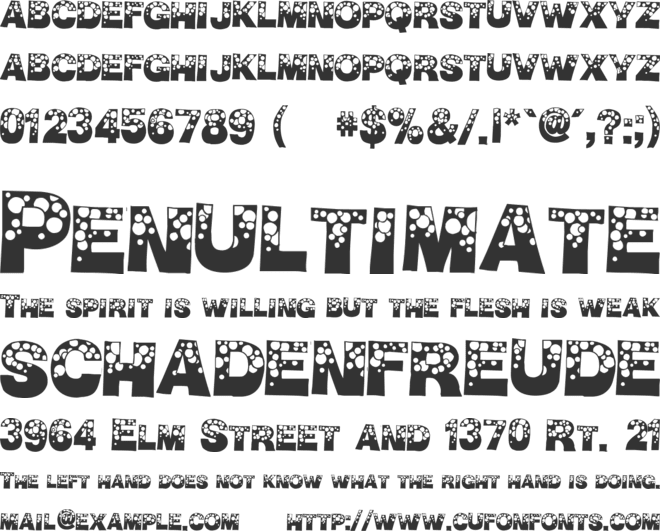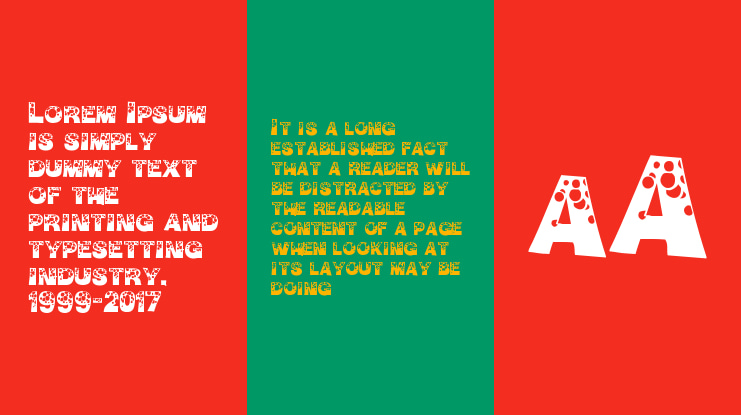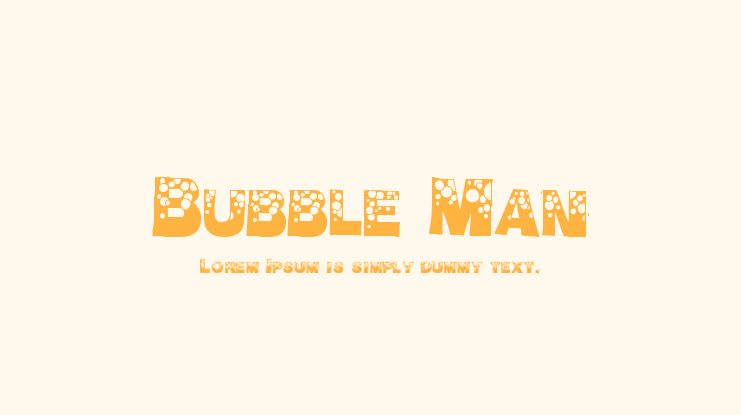
Bubble Man Font
Remember that classic Robot Monster film? Well this is just as dangerous as the bubble machine he used to wipe out the Hu-Man race!!! There's bubbles in them there letters!